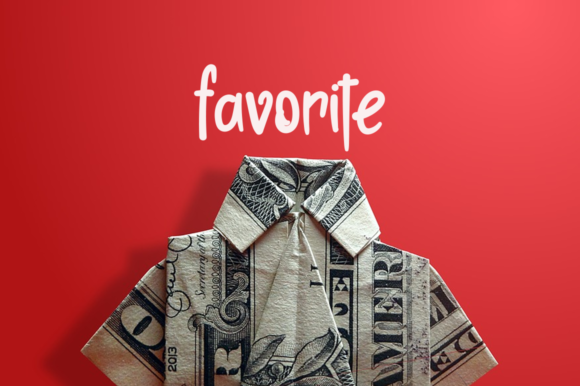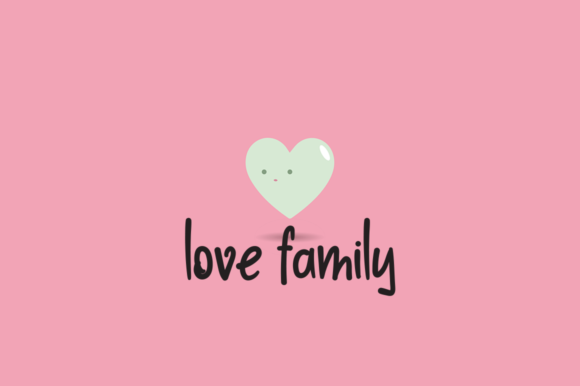
July Summer Font
db-ku.com - Script & Handwritten -- July Summer is a delicate, elegant and flowing handwritten font. It has beautiful and well balanced characters and as a result, it matches a wide pool of designs.